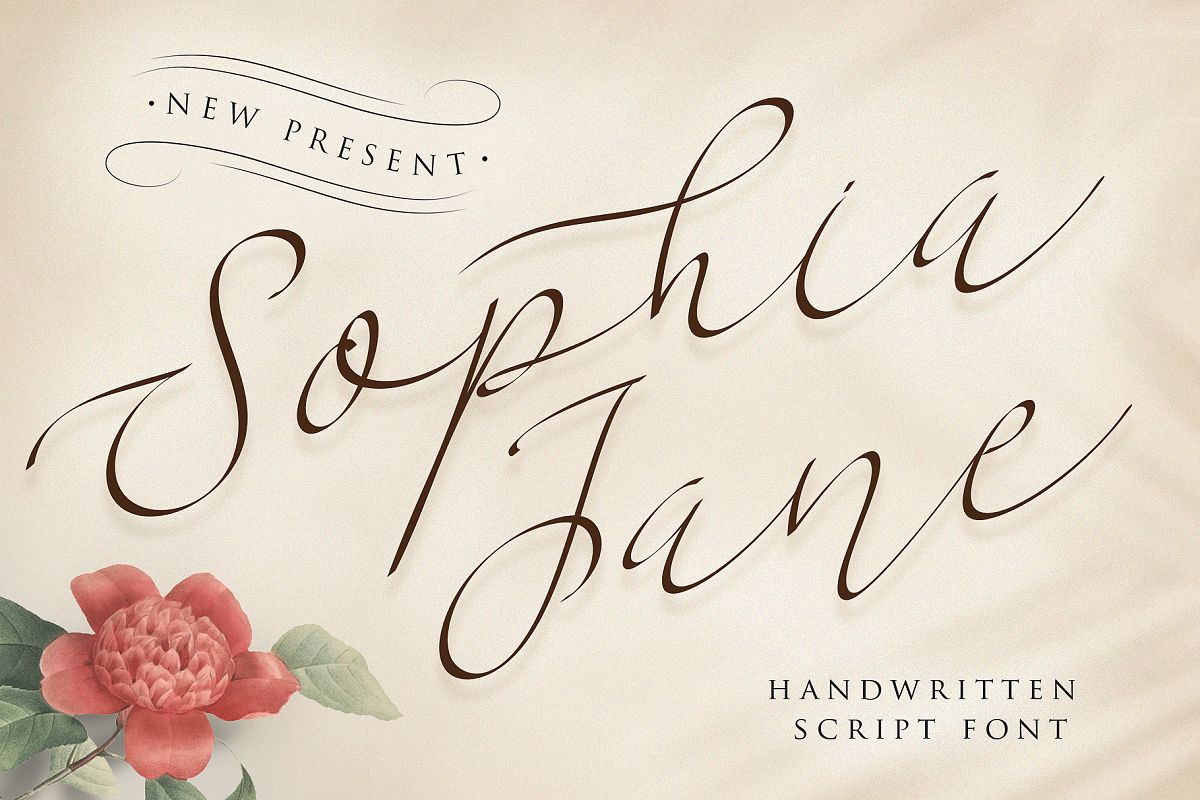
Sophia Jane Script
Introducing a new lovely calligraphy font, Sophia Jane ! Sophia Jane is perfect for elegant logos, Branding, upscale packaging, wedding stationery, websites, and any other projects requiring a handwritten and luxurious touch.Sophia Jane comes with :
• Punctuation
• Numerals
• Supports international languages